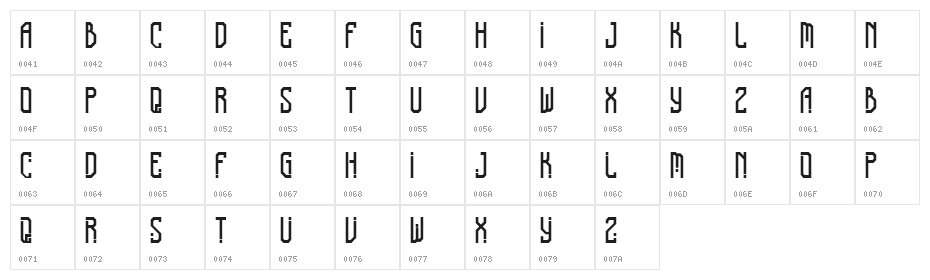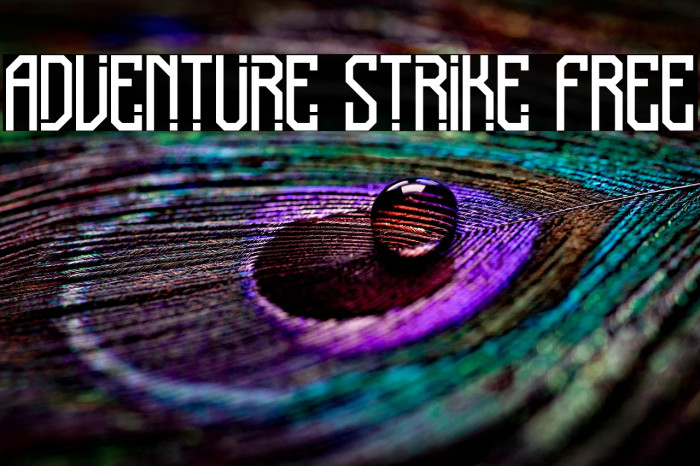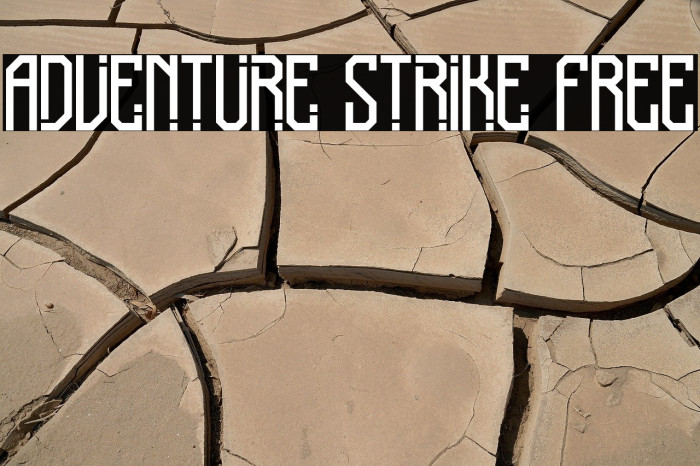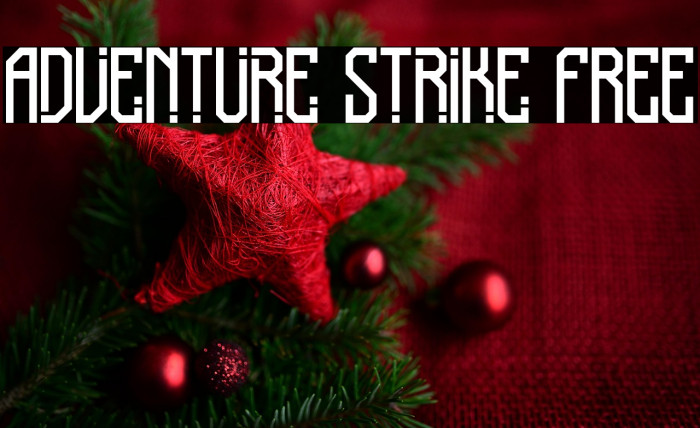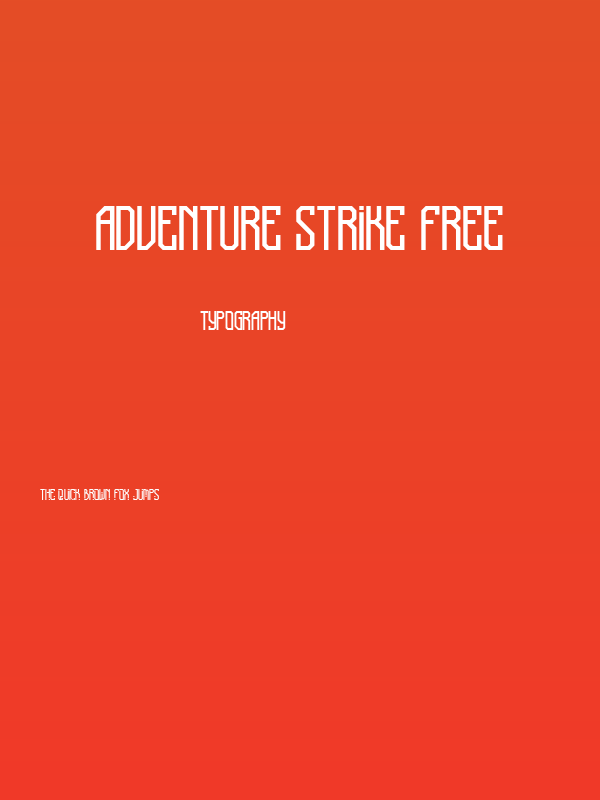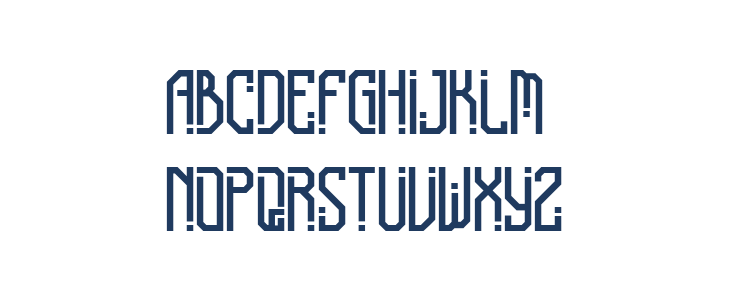
Adventure Strike FREE Font
Adventure Strike FREE Description
This font features a bold, geometric design with a distinct, angular style. The characters are constructed with straight lines and sharp angles, giving it a futuristic and mechanical appearance. The uppercase letters are uniform in height, while the lowercase letters maintain a consistent style with slightly reduced size. The numbers and special characters follow the same angular theme, ensuring a cohesive look across all glyphs. The font's unique structure makes it stand out, ideal for projects that require a modern and edgy aesthetic.
| Proposed Projects | Ideal for video game titles, tech branding, sci-fi posters, and modern graphic designs. |